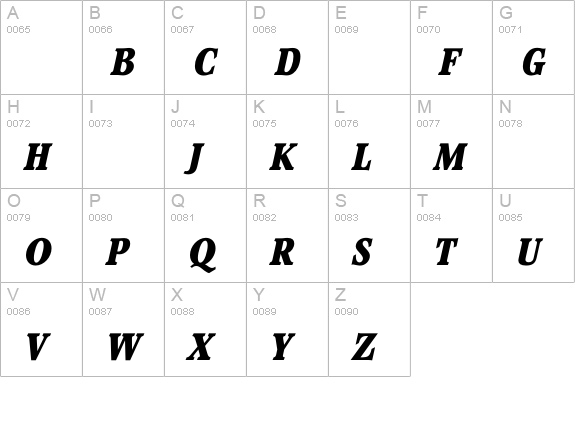
StirlingExtraBoldItalic Font Details
Stirling Extra Bold Italic is a striking and commanding font that exudes confidence and elegance. Its bold and slanted design adds a touch of sophistication to any project, making it perfect for headlines, titles, and branding materials. The sharp angles and clean lines of Stirling Extra Bold Italic make it a standout choice for anyone looking to make a bold statement. The best part? Stirling Extra Bold Italic is completely free to download at FontsMarket.com. This means you can add this stunning font to your collection without breaking the bank. Whether you're designing a sleek modern website, creating eye-catching advertisements, or crafting a professional presentation, Stirling Extra Bold Italic is sure to elevate your work to the next level. Download it today and see the impact it can make on your projects!